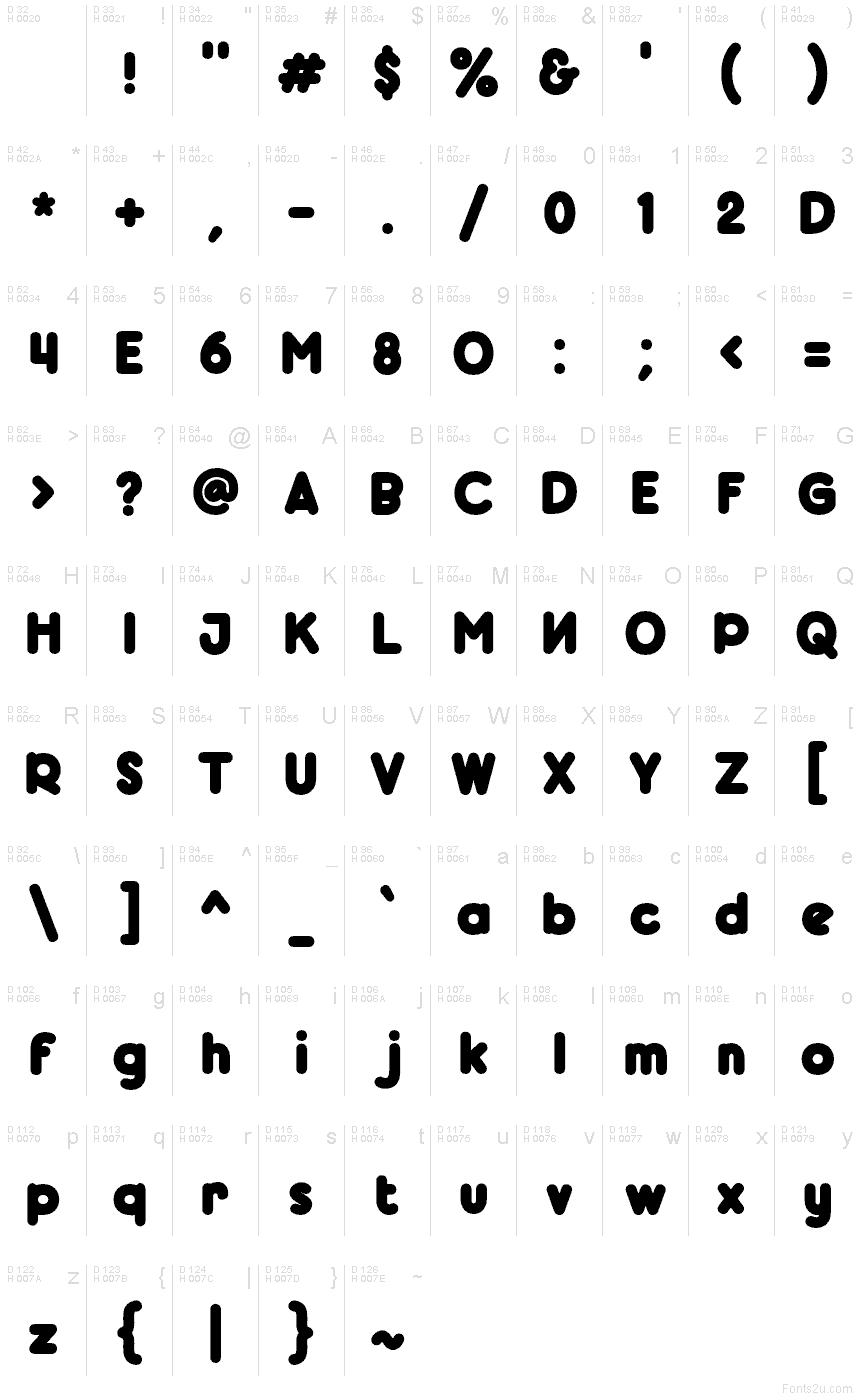
Boldyguard_Demo Regular
Boldyguard is a font that will make your design looks bold, modern, unique and fun. Perfect for playful kids font with cartoon style. This font is specially crafted for children, Kids, Boys, Kindergarten, Birthday, and Comic purposes.